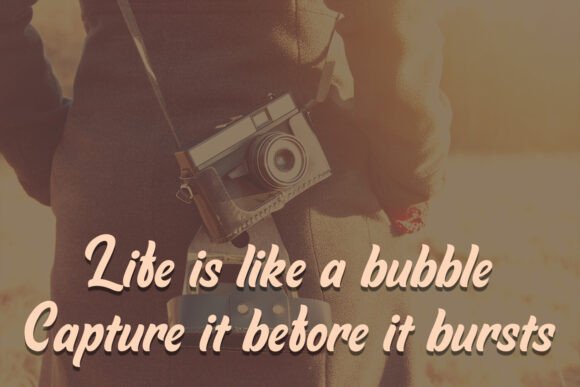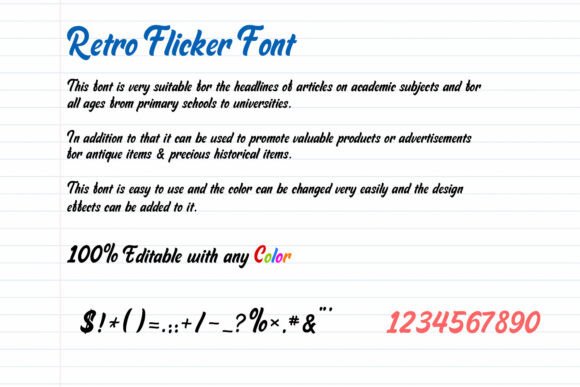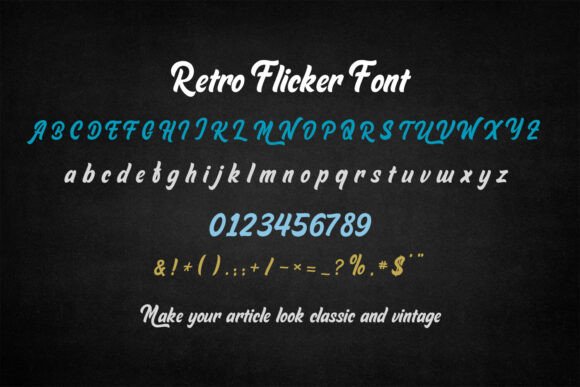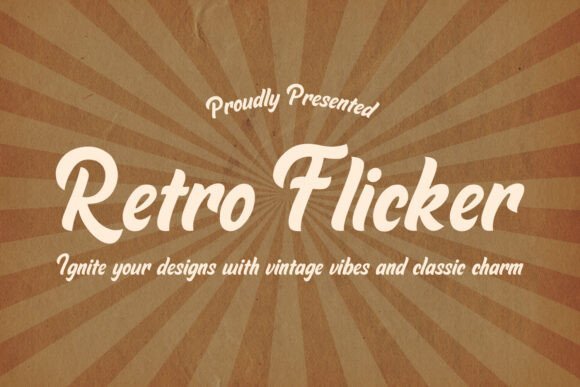
Introduction to Retro Flicker Font
Retro Flicker Font combines vintage charm with a modern twist, perfect for creating eye-catching designs.
Inspired by classic neon signs and retro aesthetics, this font brings a nostalgic glow to posters, logos, and branding projects Ideal for those seeking a bold, playful style, Retro Flicker Font adds personality and flair to any creative work.
Key Features of Retro Flicker Font
Why Choose Retro Flicker Font?
Retro Flicker Font offers exceptional quality and versatility, making it a valuable addition to your design toolkit. Whether you’re creating for personal projects or commercial use, Retro Flicker Font delivers professional results.